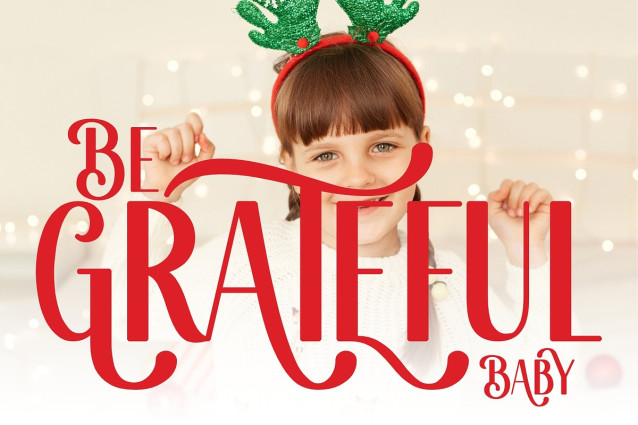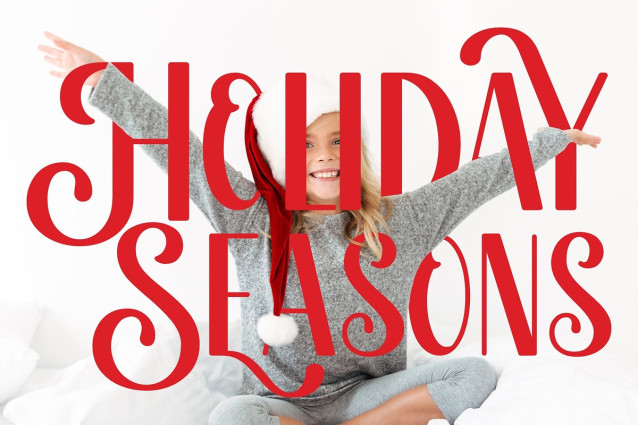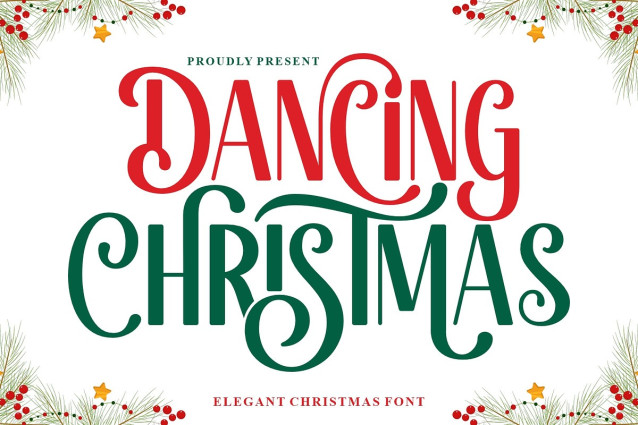
Dancing Christmas Font
Dancing Christmas Font – an elegant handwritten font that captures the festive spirit with grace. With its fluid strokes and refined charm, Dancing Christmas adds a touch of sophistication to your holiday projects. Perfect for greeting cards, invitations, or any design that seeks to embody the spirit of the season with a hint of timeless elegance. Bring a touch of graceful festivity to your typography with Dancing Christmas.